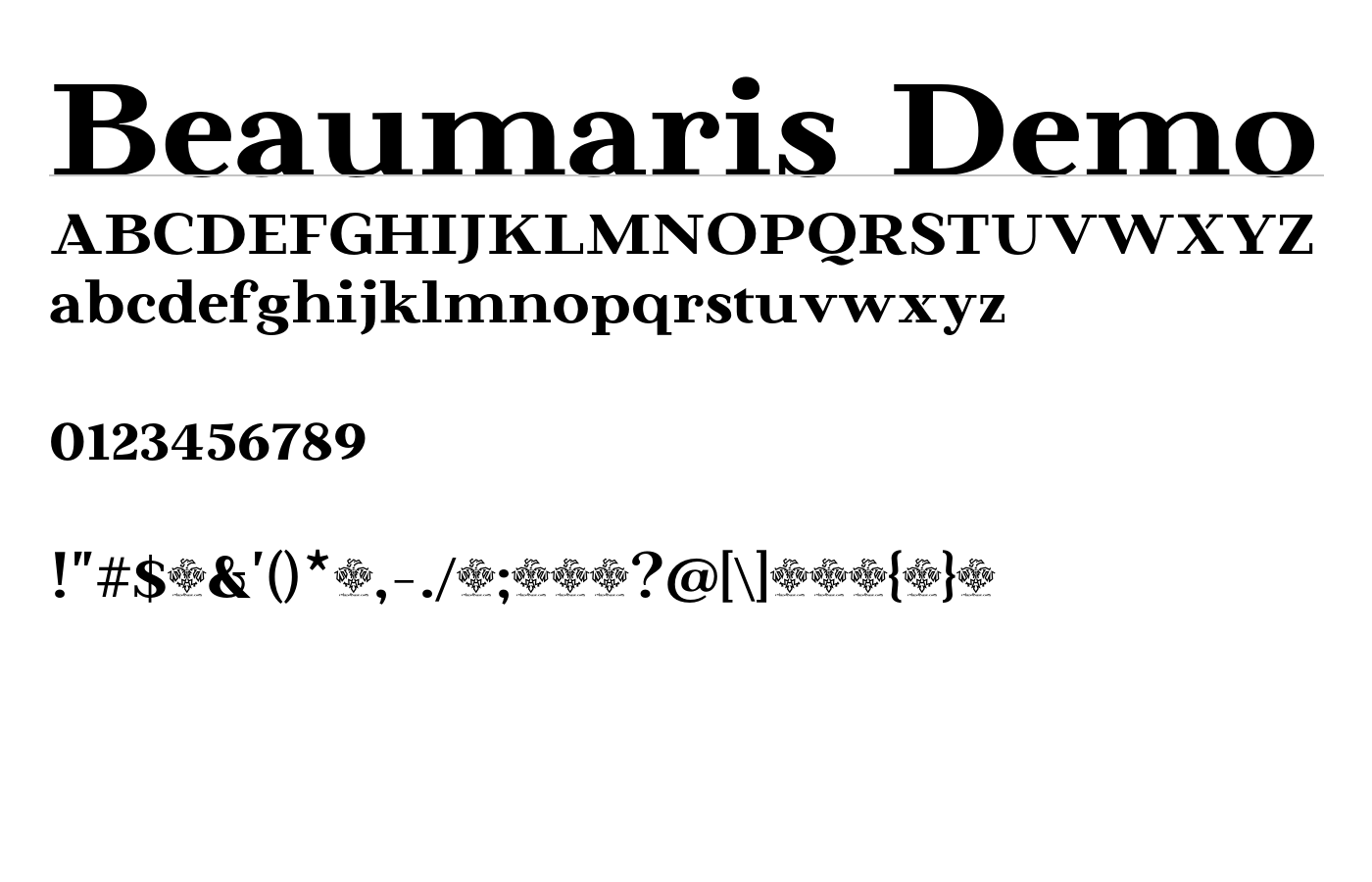
Beaumaris Demo is a classic serif font with a strong, traditional feel characterized by high contrast between thick and thin strokes and sharp, bracketed serifs. Its sturdy structure and elegant letterforms make it ideal for conveying sophistication and authority, fitting perfectly in editorial design, luxury branding, and formal headlines. This font works well where a timeless, refined appearance is desired, combining readability with a touch of vintage charm.
Beaumaris Demo Font
About Beaumaris Demo Font
| Font family | Beaumaris Demo Font |
| Languages supported | Latin, Cyrillic, Thai, Symbols |
| Designer | Roland Huse |